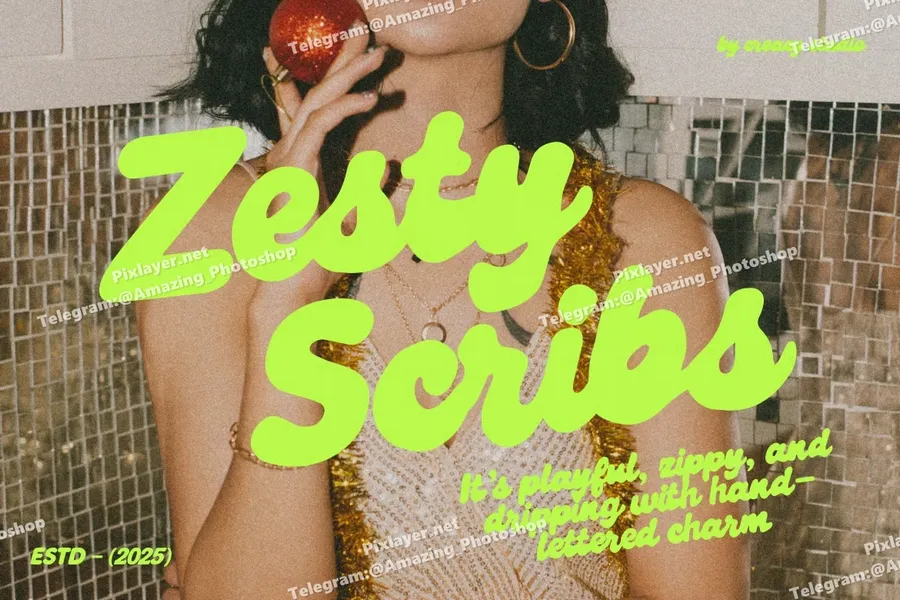
Zesty Scribs – A Playful Script Font
Say hello to Zesty Scribs, a bold & bubbly script font bursting with attitude. Whether you’re crafting bold headlines, cheeky quotes, or retro-inspired branding, Zesty Scribs brings the flavor — playful, zippy, and oh-so-fun.
With smooth curves, punchy strokes, and a hand-lettered charm, this typeface is your go-to for that quirky-but-polished look. It’s giving sass, it’s giving class, and it totally slays on everything from packaging to party invites.
💌 Perfect For:
Bold quotes & fun headlines
Fashion, beauty & lifestyle branding
Greeting cards, merch, & stickers
Retro visuals & expressive layouts
Social media posts with a twist
✨ Zesty Scribs is the ultimate font for creatives who color outside the lines. Loud, proud, and ready to scrib it all out. Let’s scrib it, babe.